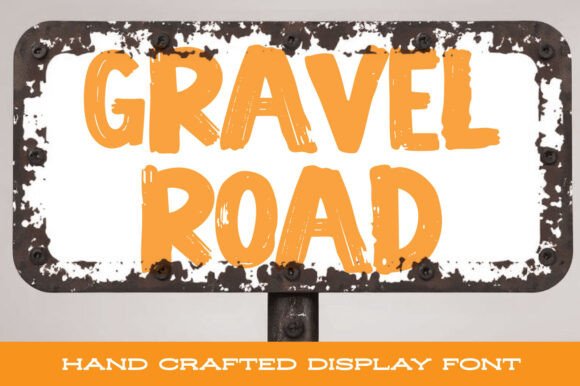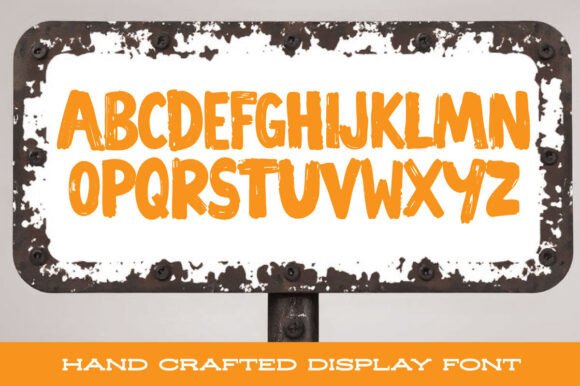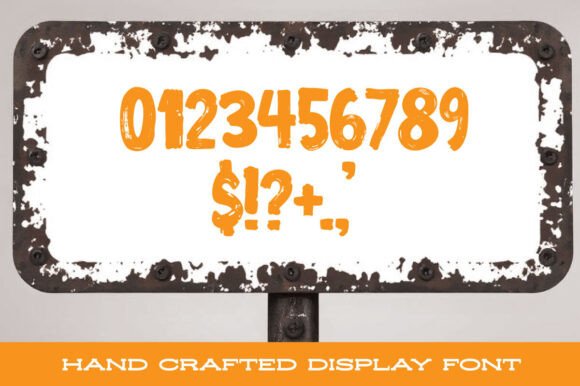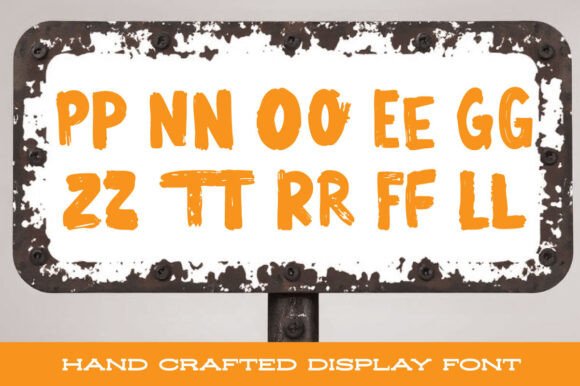
Gravel Road Font: A Bold & Rustic Display Font for Authentic Designs
About the Gravel Road Font
Discover the charm of Gravel Road Font. This font is a perfect blend of modern aesthetics and classic appeal. Gravel Road is a bold, rugged font that captures the essence of weathered paths and untamed journeys. Its distressed texture and uneven edges give it a raw, organic feel, perfect for designs that call for grit and authenticity. Whether you’re creating for outdoor adventure themes, rustic branding, or bold statement pieces, Gravel Road delivers a grounded, textured aesthetic that commands attention.
Gravel Road excels in headlines, short impactful phrases, and logos where its strong texture adds visual weight and character. It’s ideal for branding projects related to adventure, outdoors, and handcrafted goods, adding a sense of authenticity and ruggedness. Avoid using it for body text or UI elements; the unevenness compromises readability in extended use.
Pairing Gravel Road with a clean sans-serif like Montserrat for body text creates a strong contrast, balancing the font’s roughness with modern clarity. Alternatively, a classic serif like Garamond adds a touch of sophistication, softening the raw edge of Gravel Road while maintaining a strong visual hierarchy.
The font’s overall personality is bold and rugged, conveying strength and authenticity. It’s best suited for brands seeking to project a sense of adventure, durability, and handcrafted quality.
Gravel Road Font Usage Examples
Gravel Road Font Example